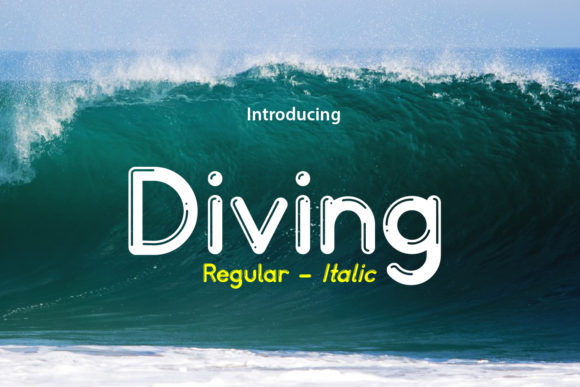
Enter the world of Diving Font, a captivating sans serif font family that will transform your designs into masterpieces. Its friendly and inviting curves are like a warm embrace, drawing your audience in and creating a lasting connection. This font is not just a simple typeface; it's an artistic expression, a symphony of letters that dance across the page.
Dive into the depths of creativity with Diving Font. Its sleek and stylish lines are perfect for logos, where every stroke speaks volumes about your brand's personality. Let your quotes shimmer with sophistication, your posters burst with vibrancy, and your business cards leave an unforgettable impression. Even your PowerPoint presentations will shine with a touch of elegance that will keep your audience captivated.
Beyond its practicality, Diving Font is a feast for the eyes. Its distinctive charm adds a dash of whimsy to your designs, making them stand out from the crowd. Whether you're crafting a playful invitation, a heartfelt letter, or an eye-catching social media post, Diving Font will infuse your words with a touch of magic.
With Diving Font, you have the power to evoke emotions, convey messages, and capture hearts. Its versatility knows no bounds, adapting seamlessly to any project you throw its way. Dive headfirst into the world of typography with Diving Font and unlock the true potential of your designs. Let your creativity soar, let your imagination run wild, and let Diving Font guide you on an extraordinary journey of self-expression.